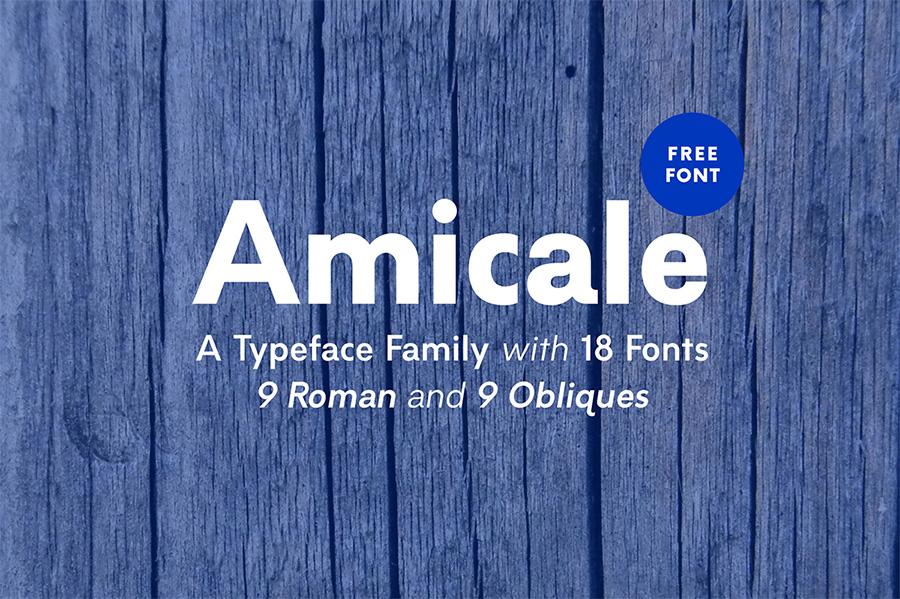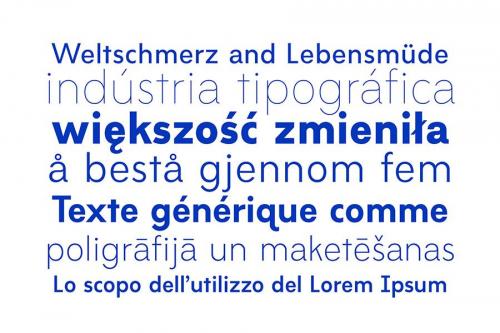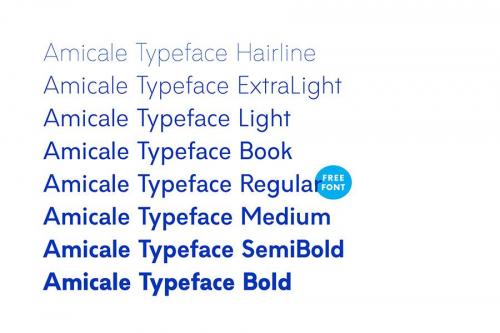
Amicale is a modern sans serif typeface that is clean and professional. The regular weight from the full complete family is free to download. A big thanks to Alfredo Marco Pradil for this free font. Make sure to check out the Full Family Version to get more from this typeface.
- Designer: Alfredo Marco Pradil